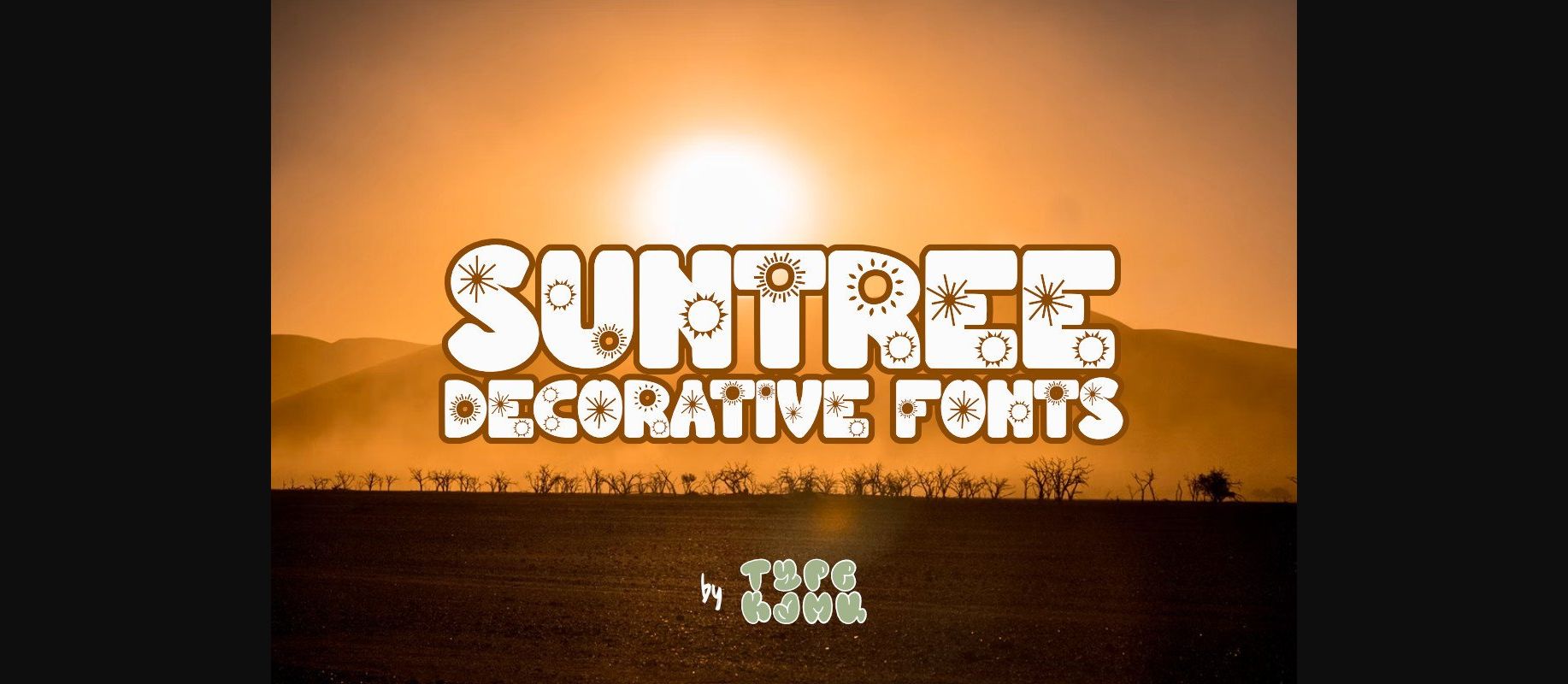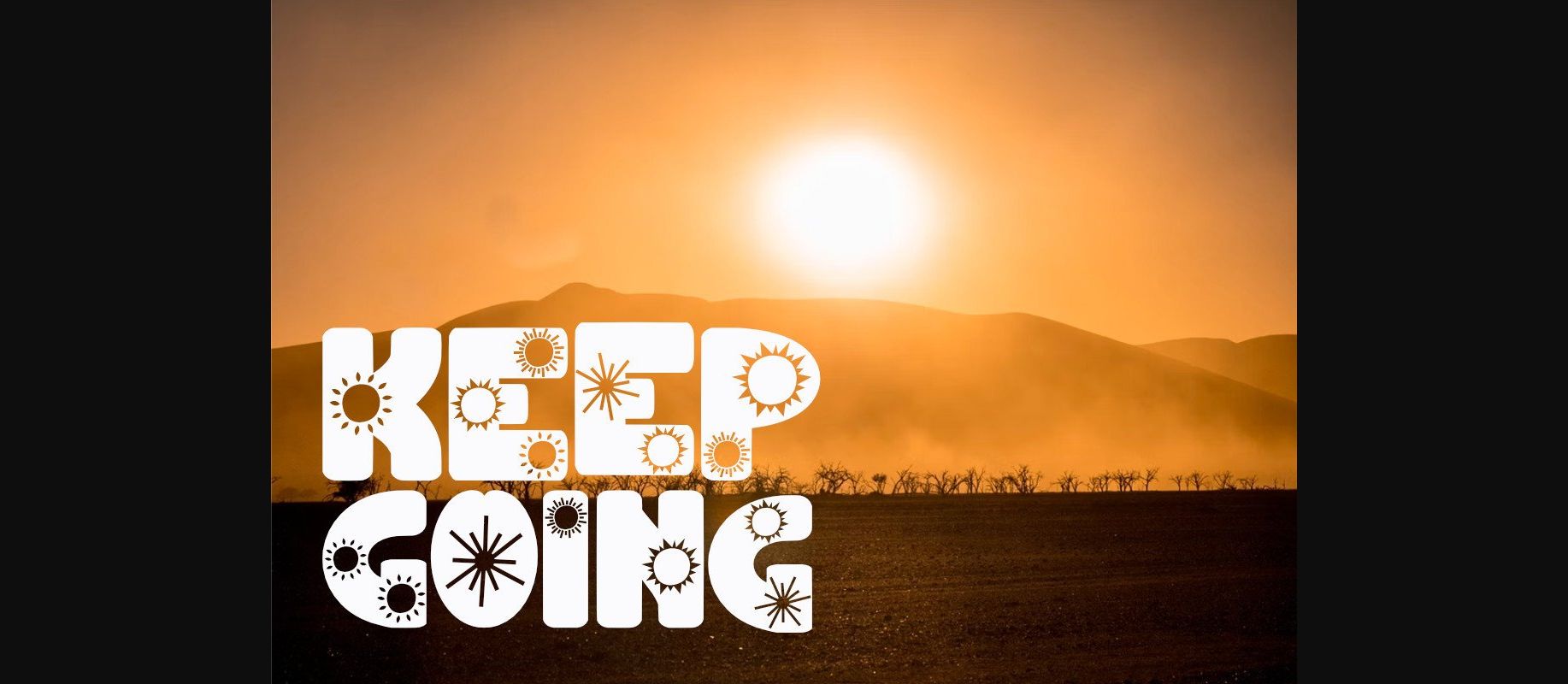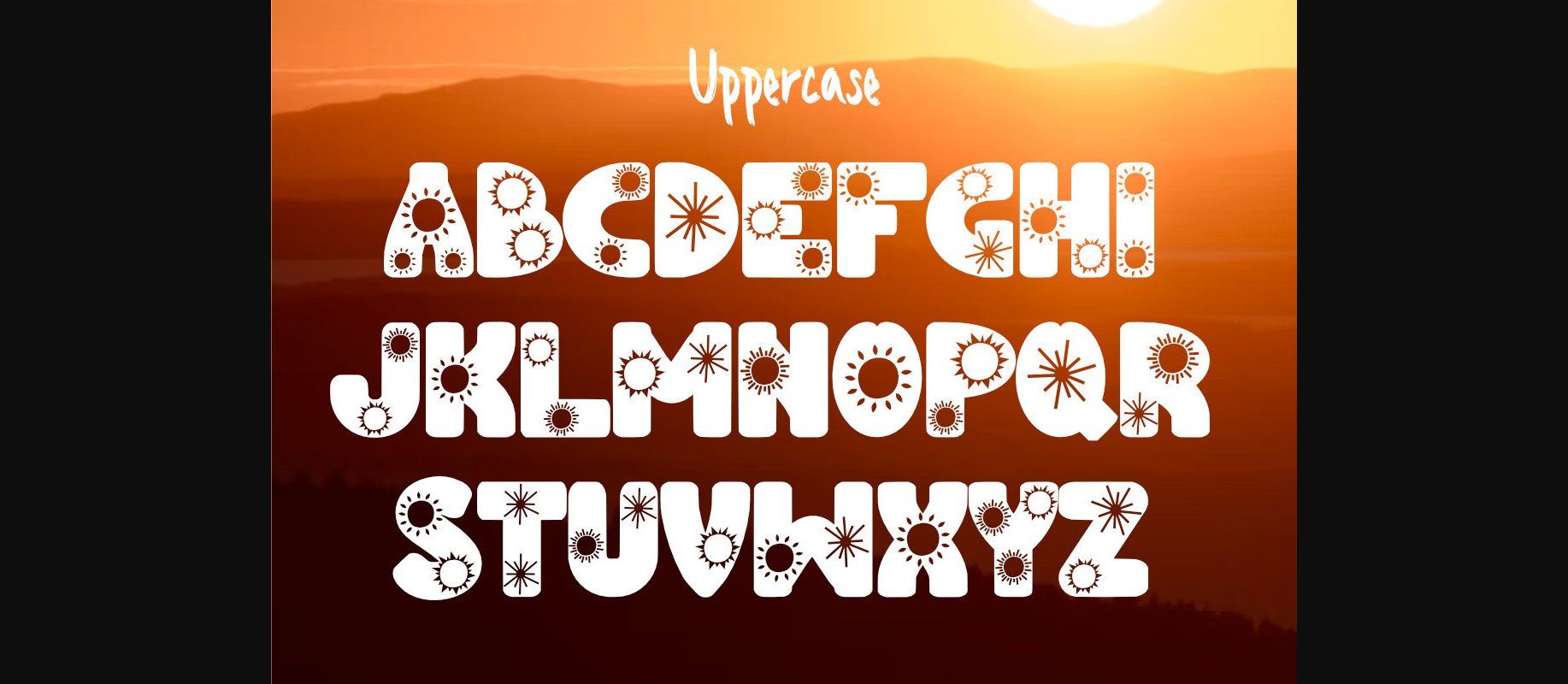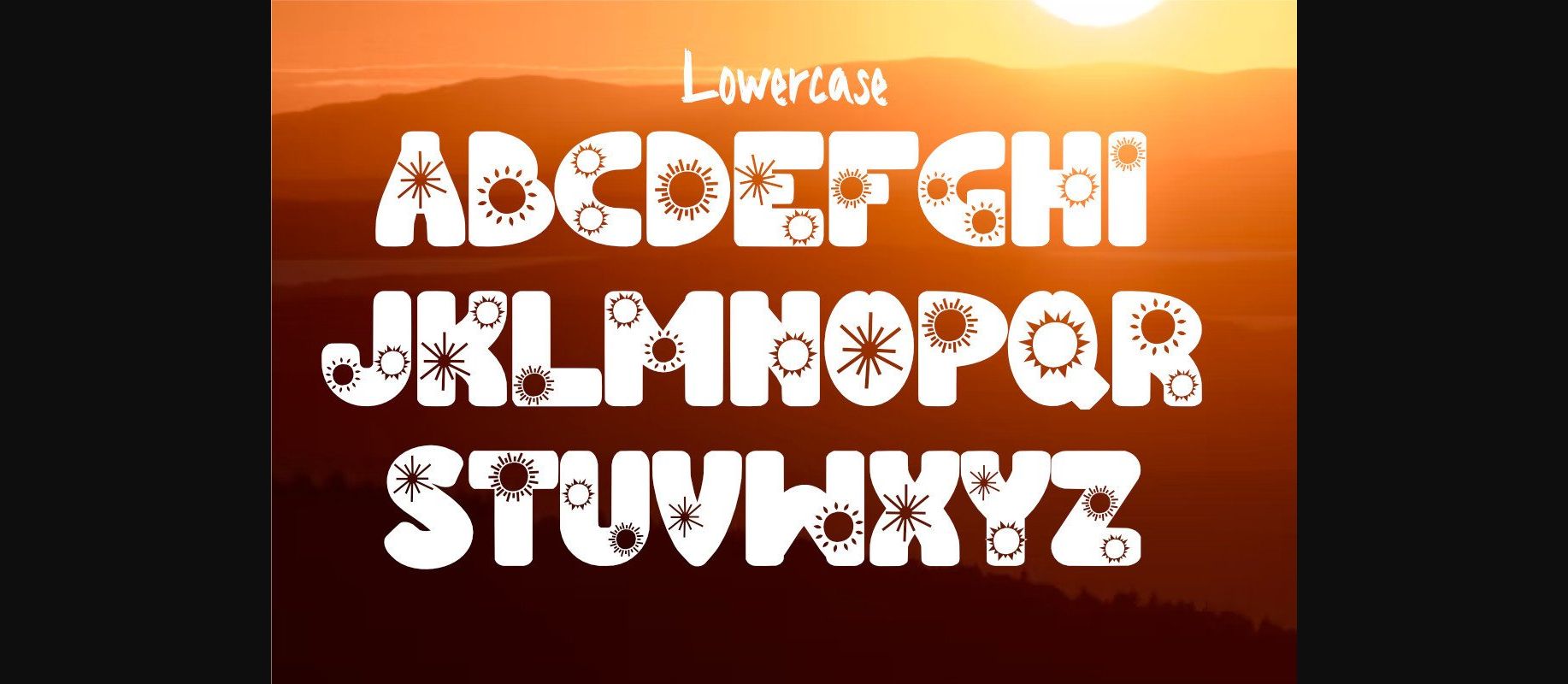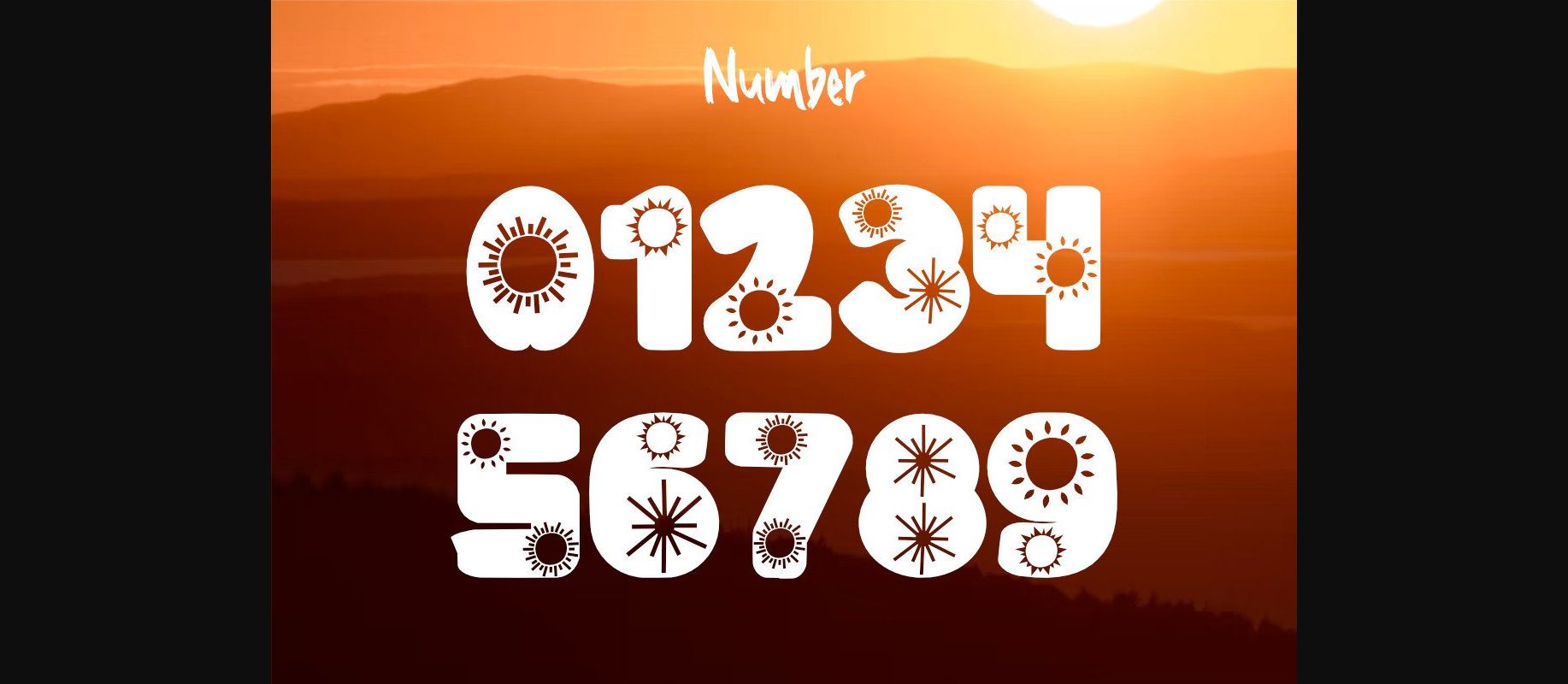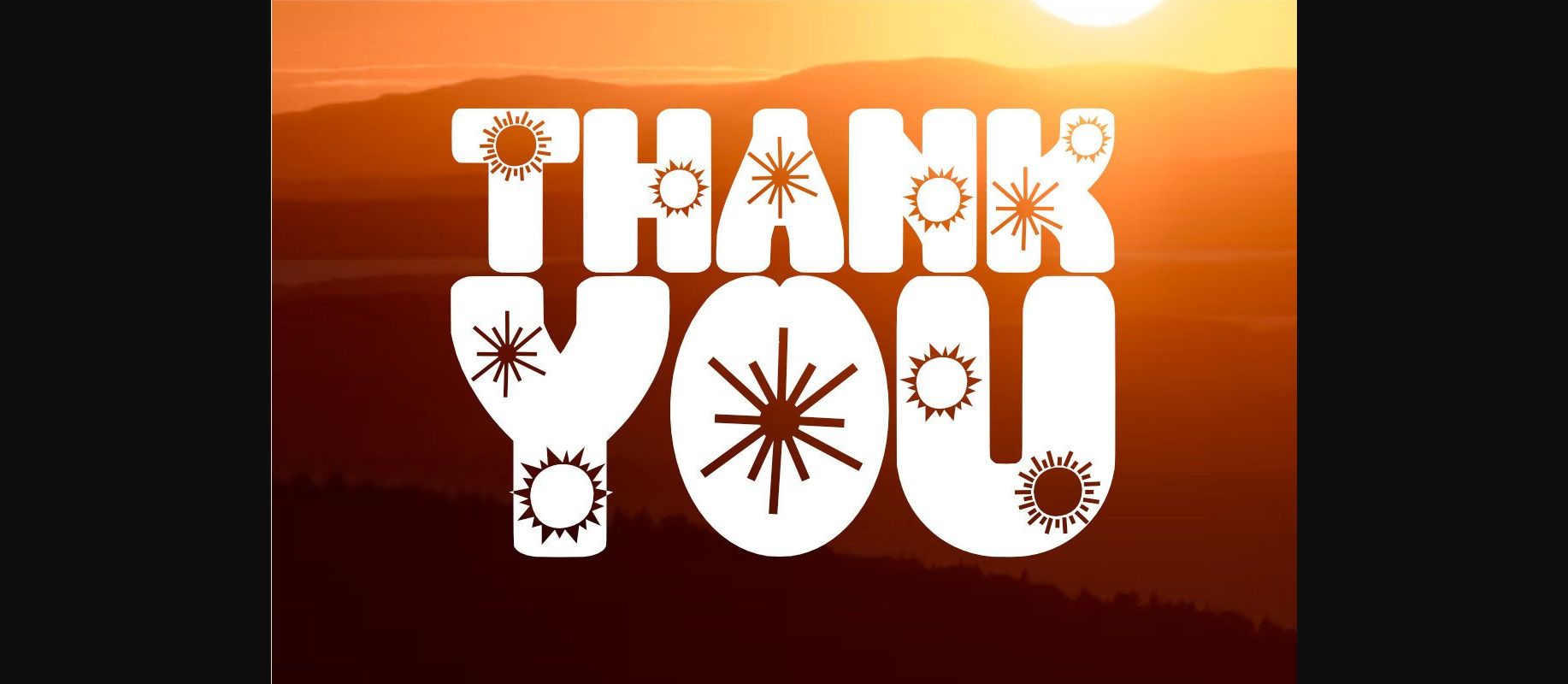
Suntree is a decorative font with a bright and fun sun theme. This font is perfect for printing needs such as t-shirts, mugs, tumblers, book covers, posters, and many other creative ideas.